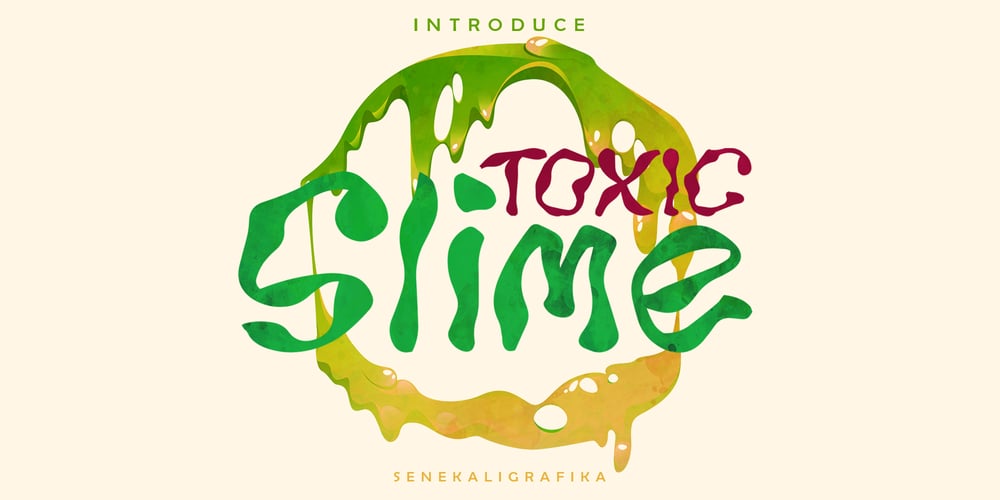
Toxic Slime
Toxic Slime font
Toxic Slime Font Family was designed by Muhammad Helmi and published by Senekaligrafika. Toxic Slime contains 1 styles and family package options. “Toxic Slime” is a handwritten font with unique texture and a distinct special touch, it was inspired slime.“Toxic Slime” will help you to create special and touching typographical design for your characteristical and exclusively projects, for branding, food product, cafe product, restaurant product, labeling, clothing, movie title, album cover, logos and many more.It is really universal and modern font. The owner of endless possibilities!